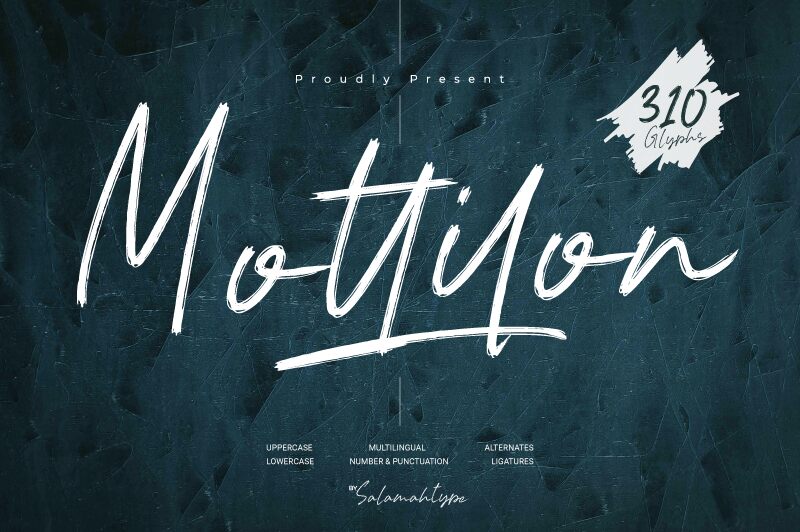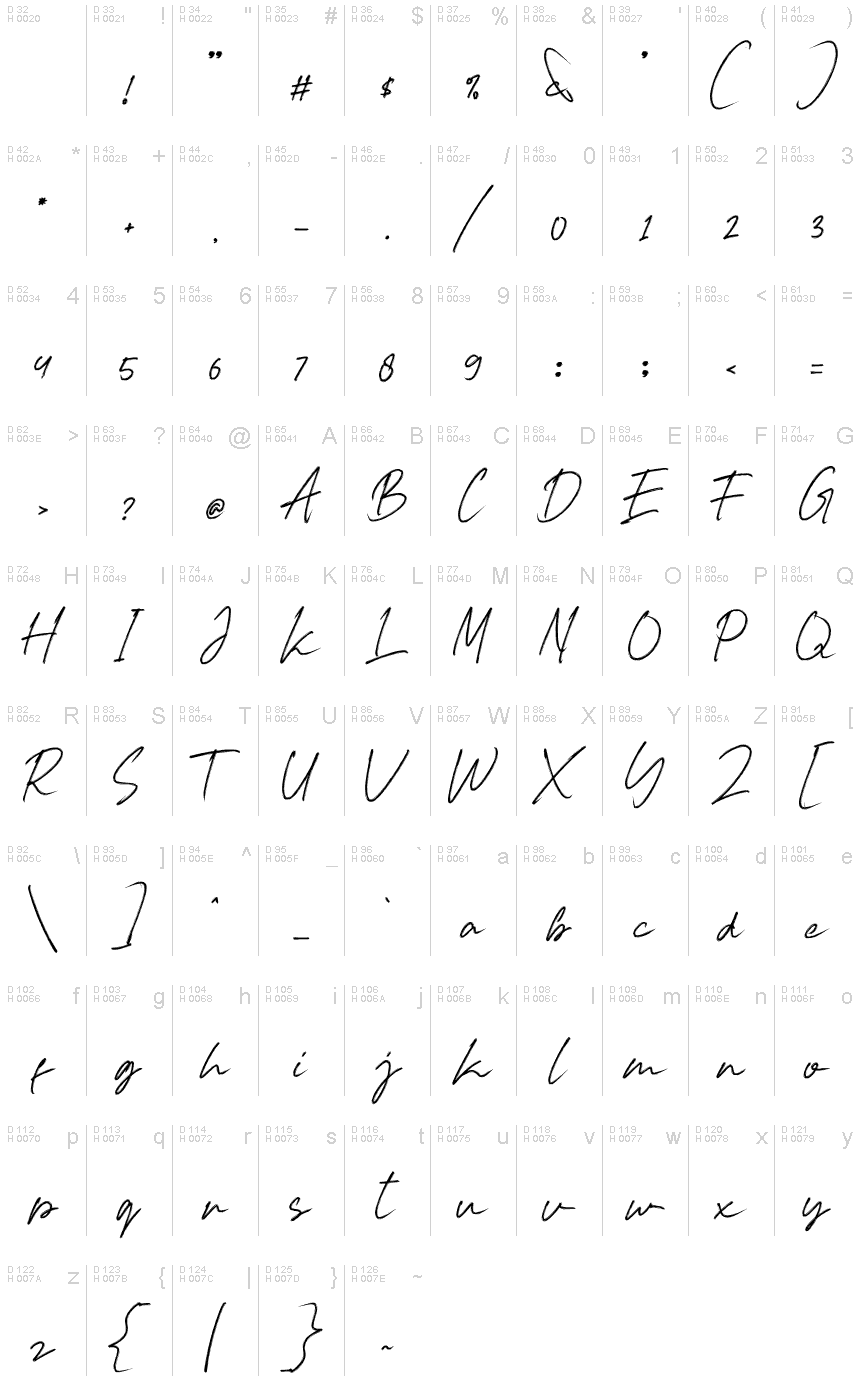
Mottilon
Mottilon, the latest creation from Salamahtype.com, is a stunning semi-light handwritten signature font that will add a touch of elegance and class to any project. With its flowing lines and delicate curves, this font is perfect for adding a personal touch to invitations, logos, branding materials, and more. The semi-light weight adds just the right amount of subtlety without sacrificing readability. Use Mottilon on wedding invitations to create an intimate atmosphere or on business cards to showcase your professionalism. This versatile font can be used in countless ways to elevate your design projects beyond the ordinary.